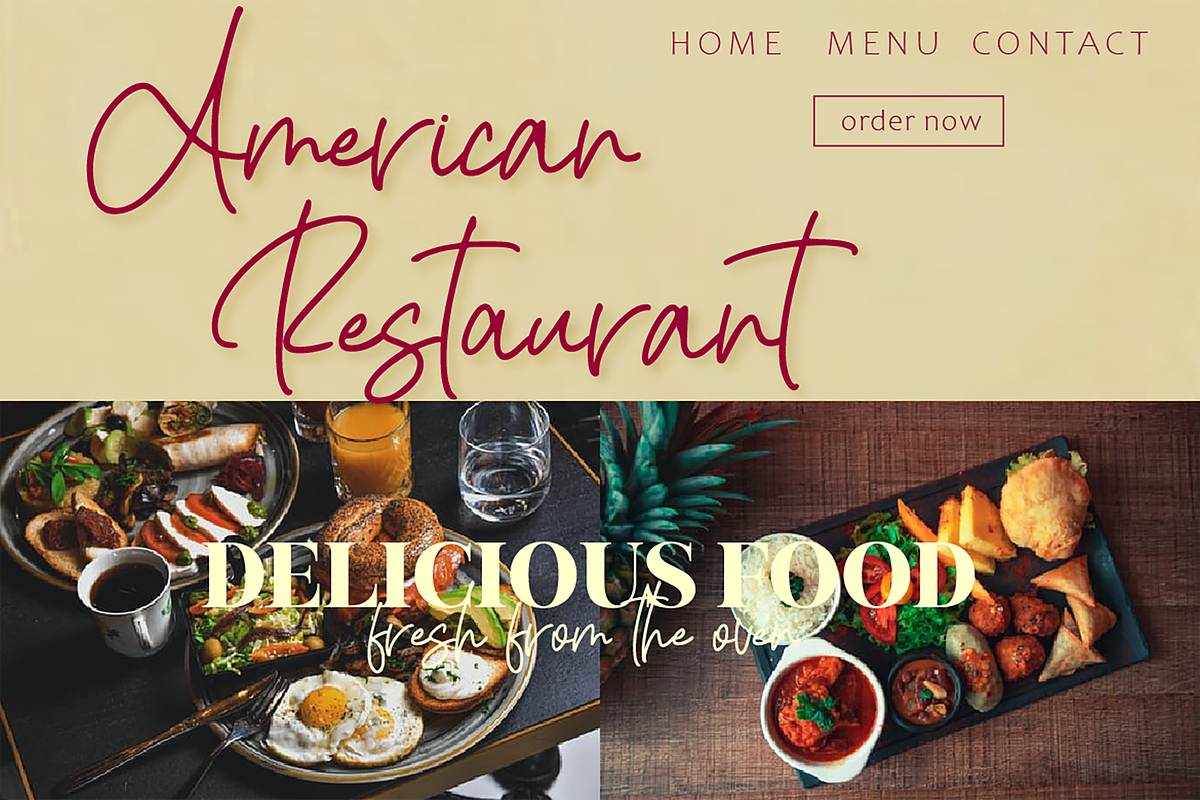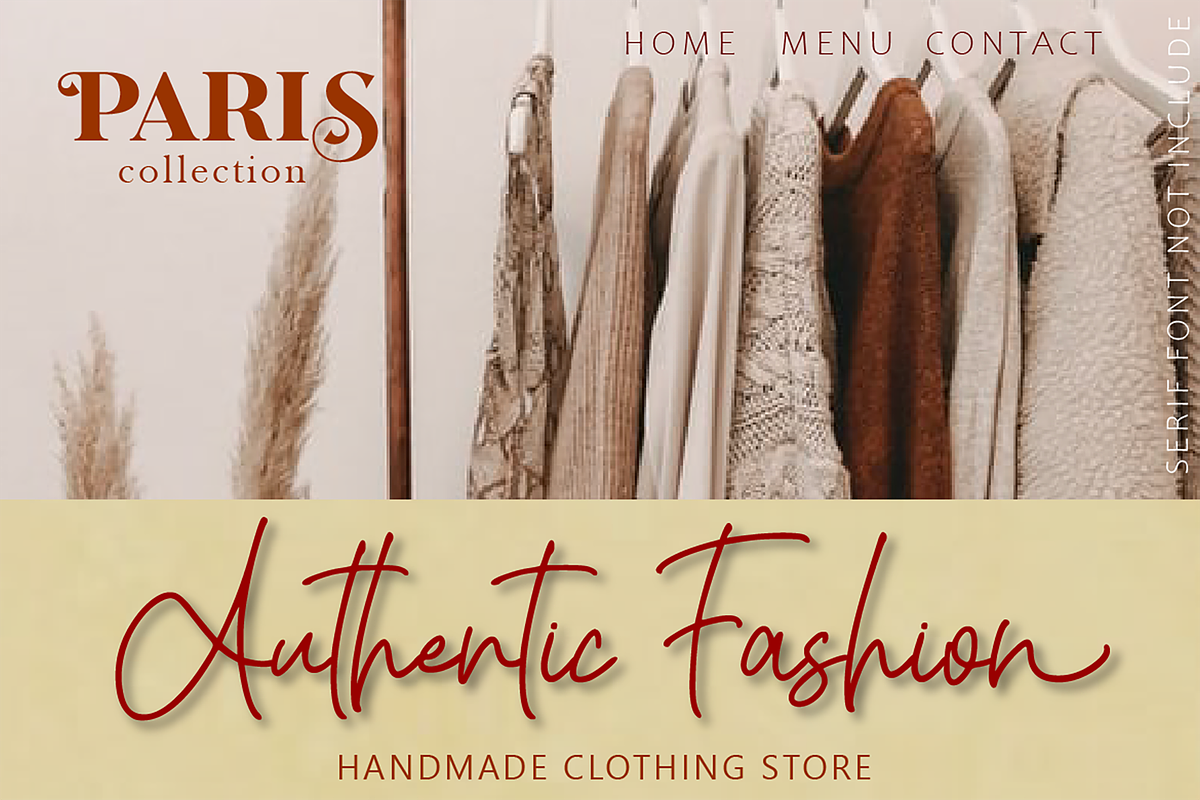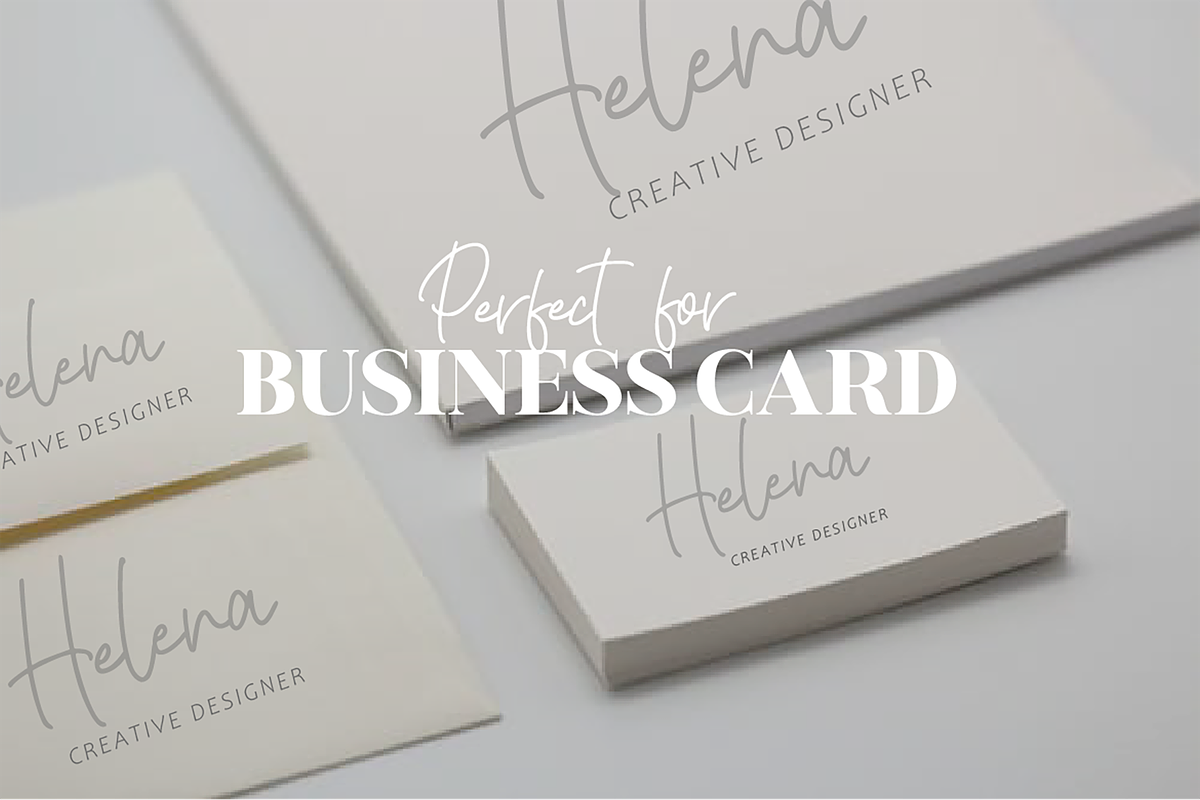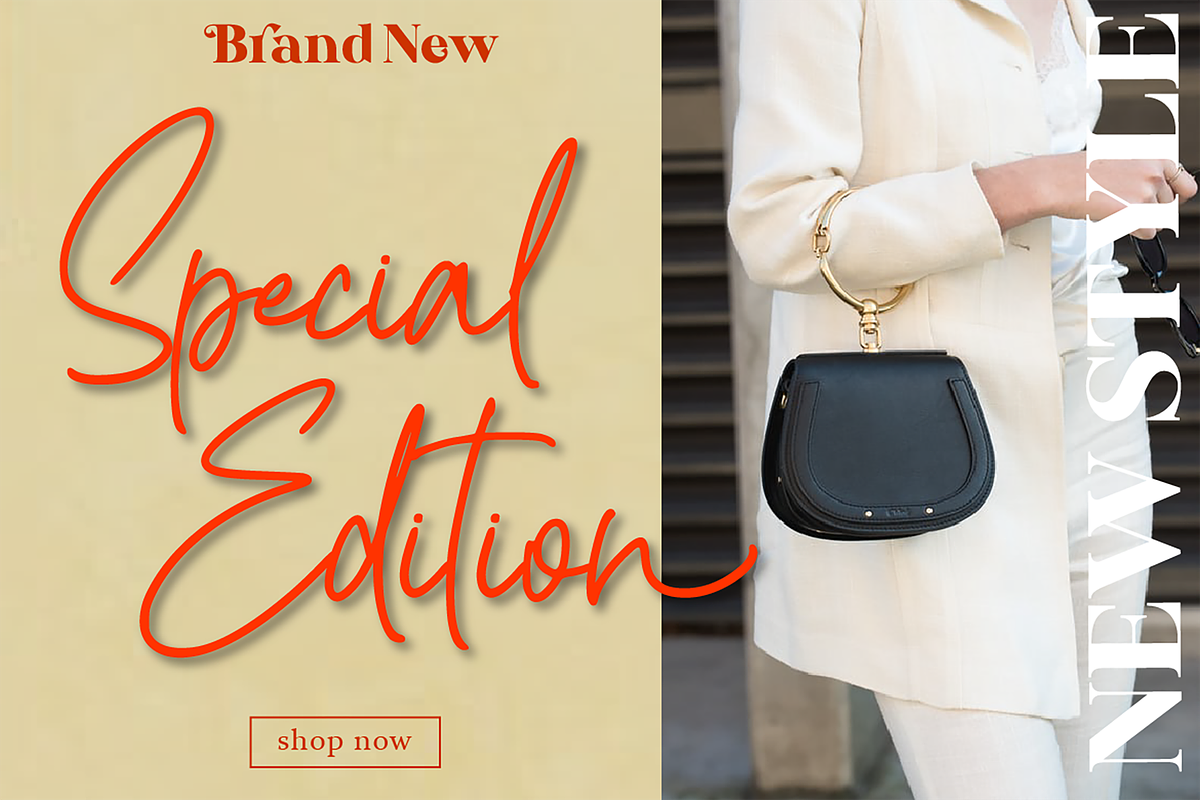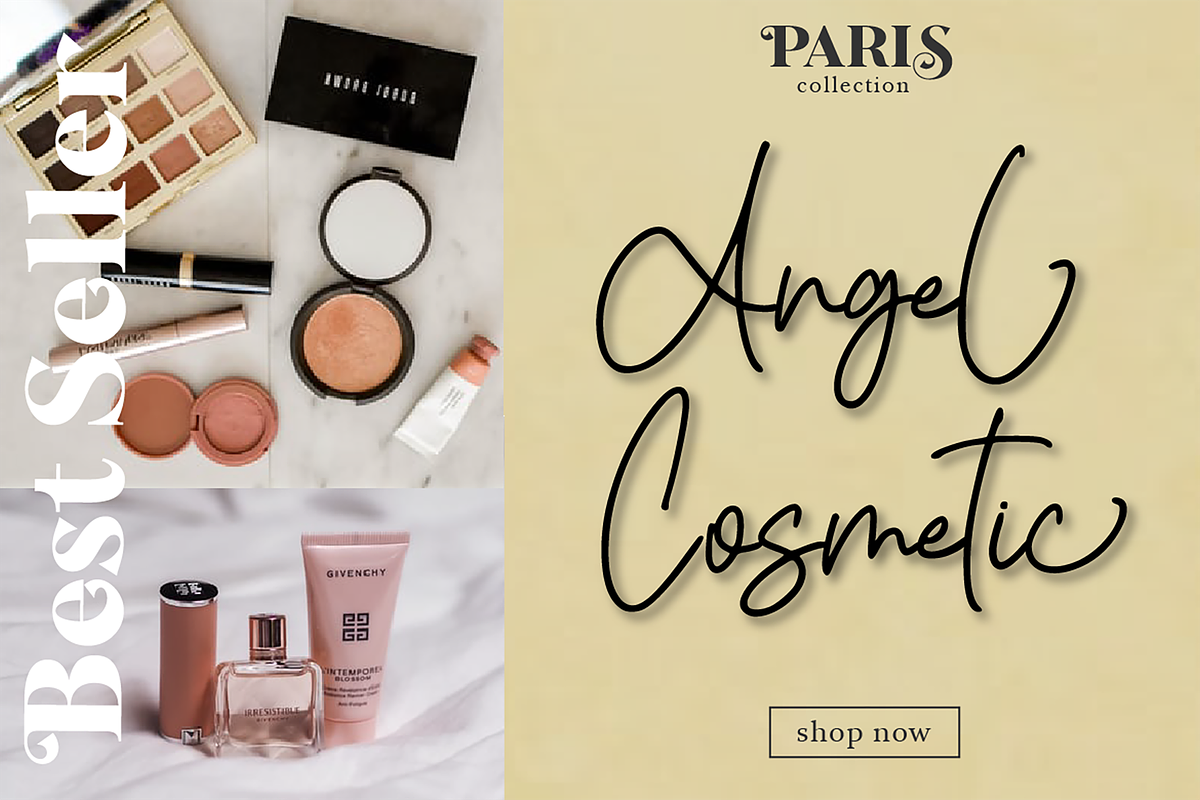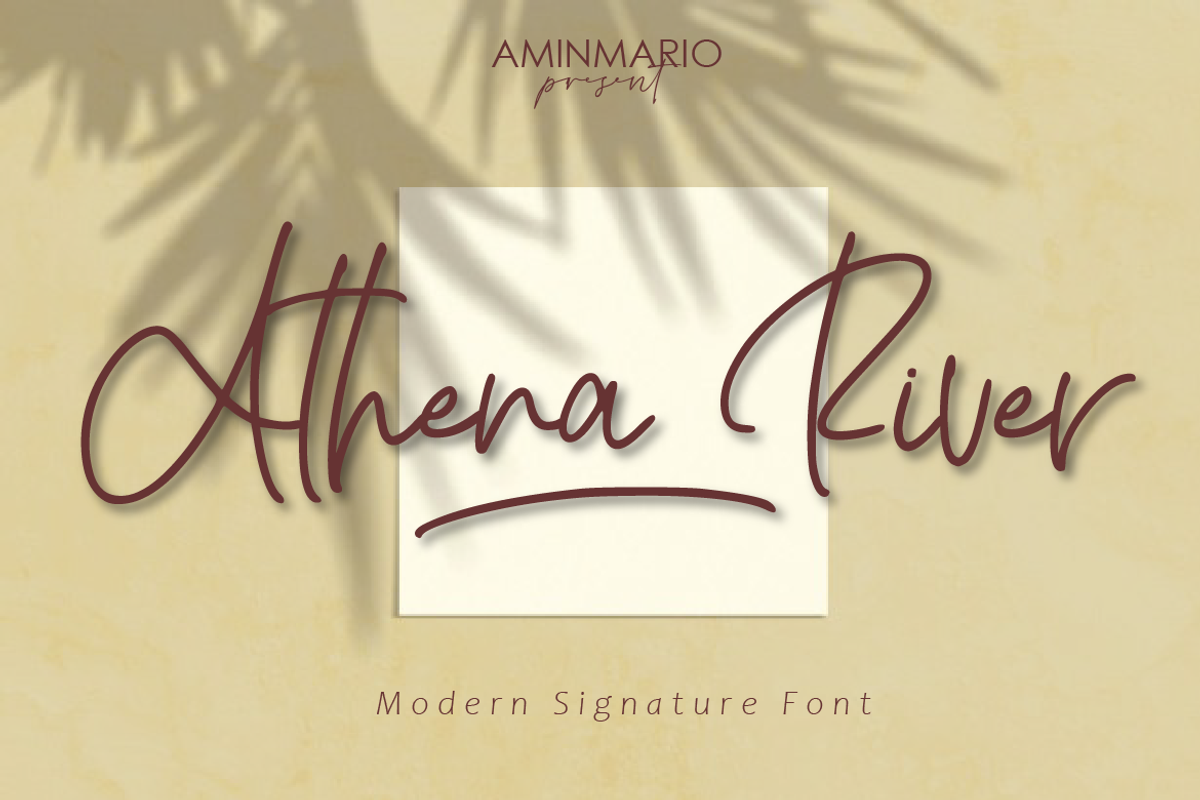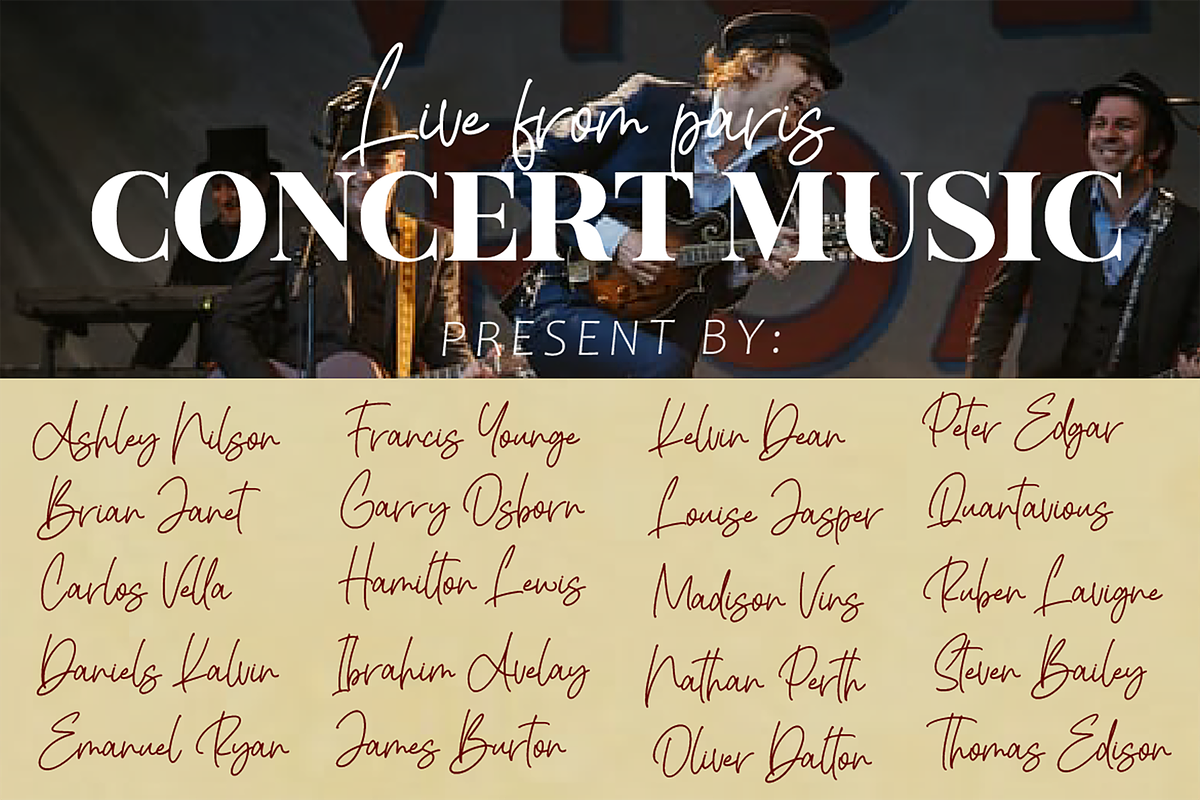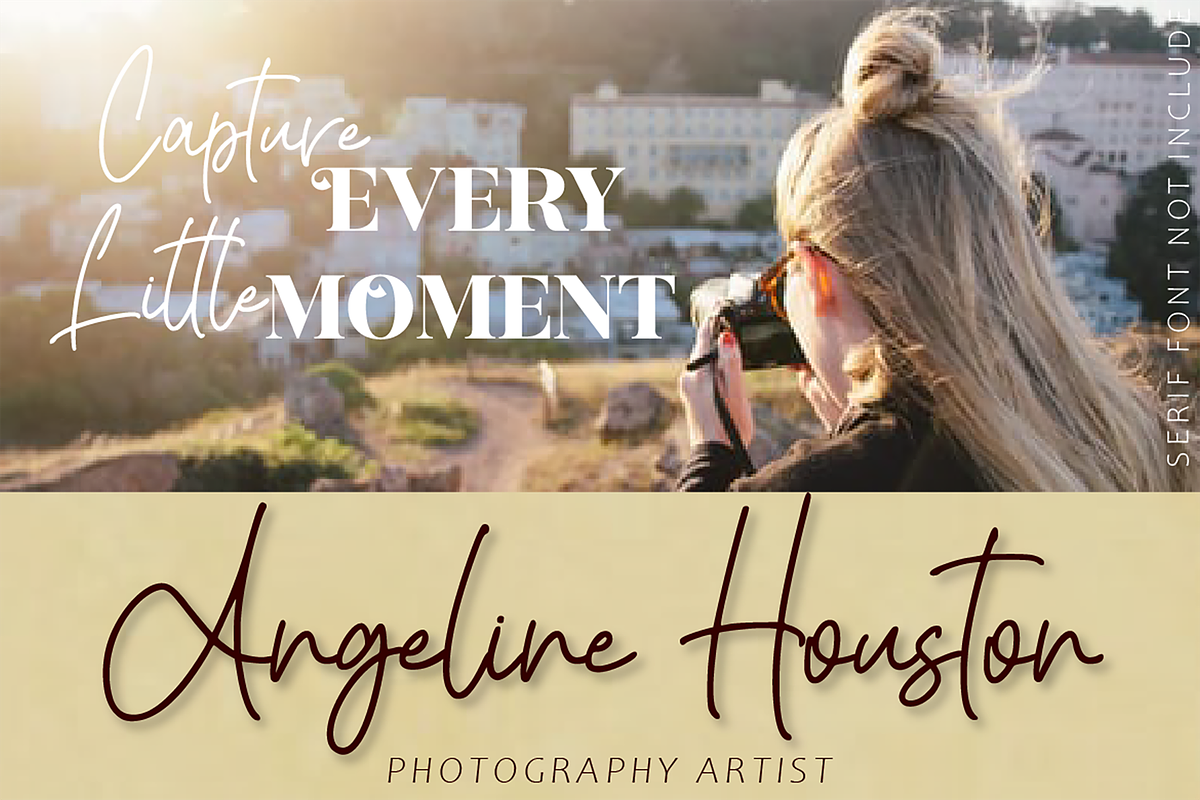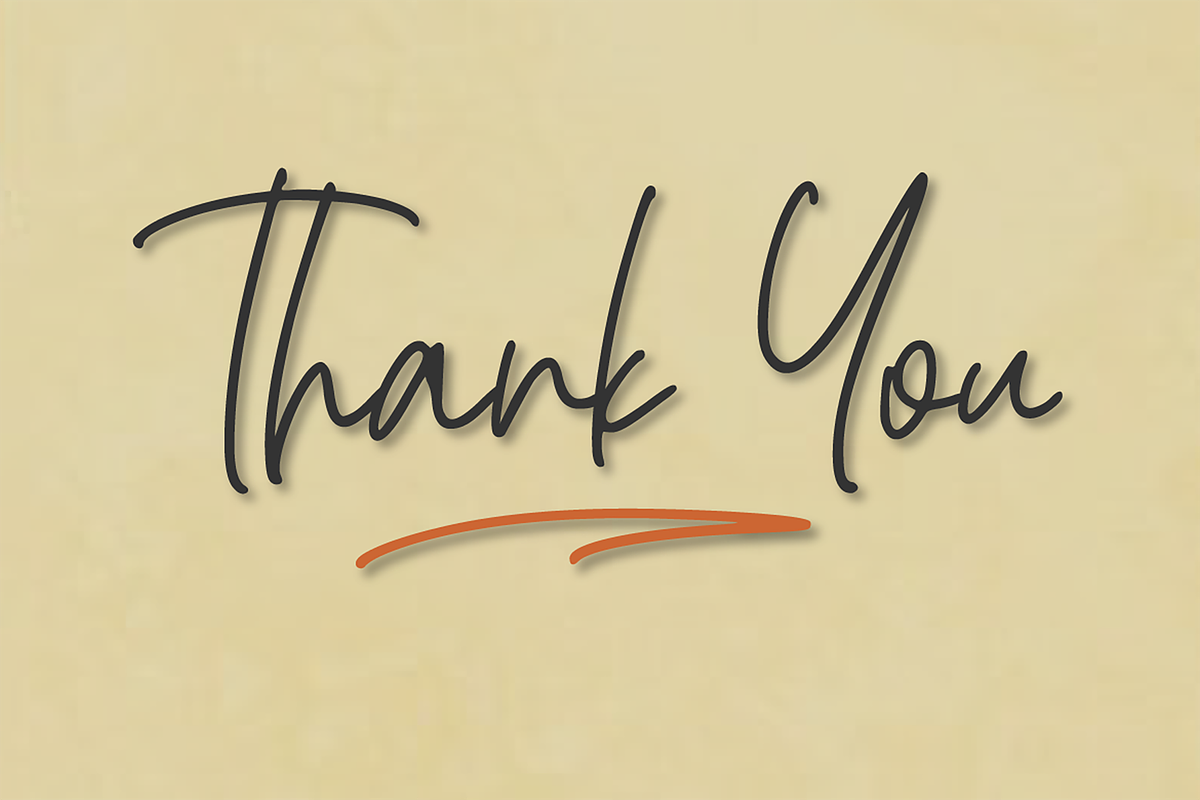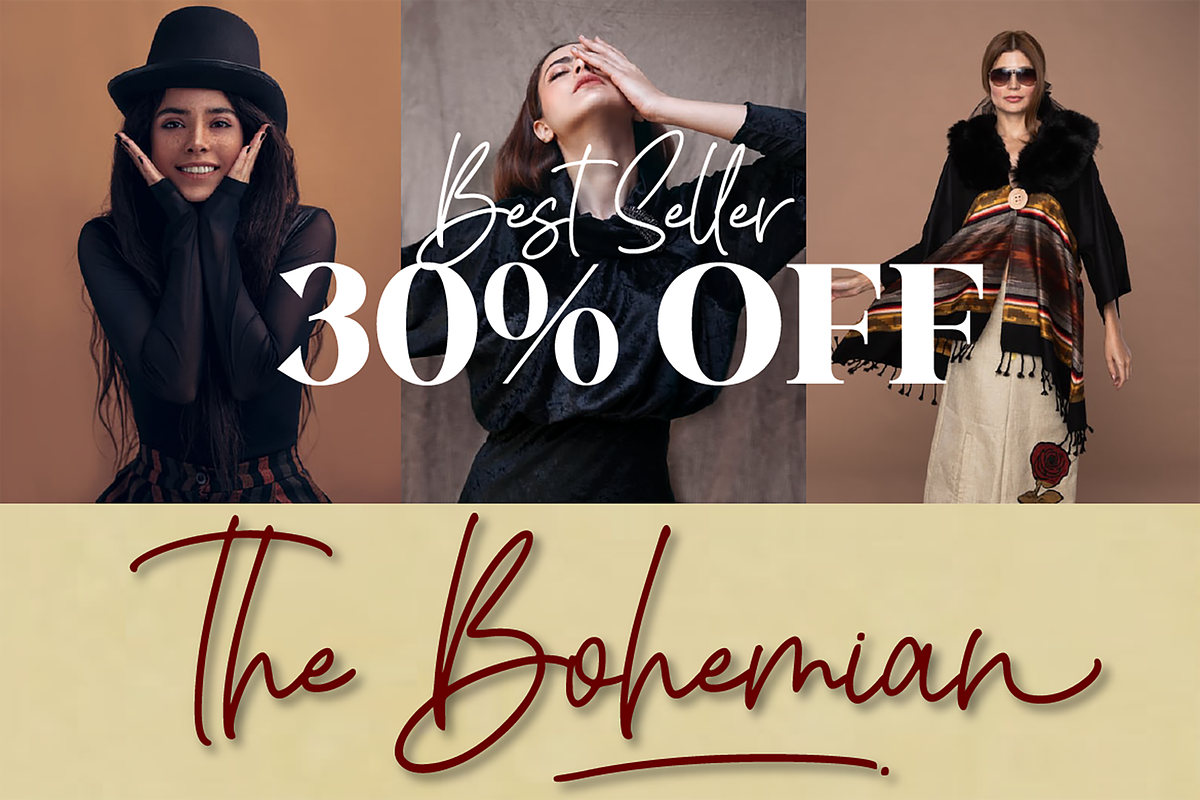
Athena River
Introducing
Athena River is a modern signature font, that is stylish and incredibly elegant script font. This font was created to look as close to a natural handwritten script, as possible by including alternates lowercase, swash lowercase, ligature and underlines. Built in Opentype features, this script comes to life as if you were writing it yourself. Perfect for any awesome projects that need hand writing taste.
Comes with regular and italic. Also support multilingual. This is suitable for branding, quotes, invitations, stationery, wedding design, logos, watermarks on photography, signatures, advertisement, album covers, business cards, clothing, magazines, posters, and more!